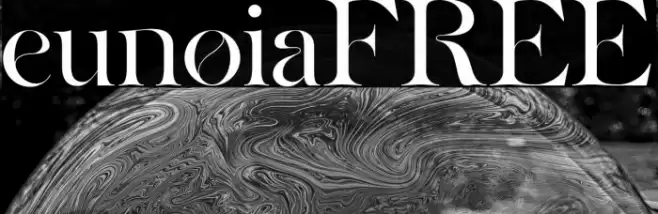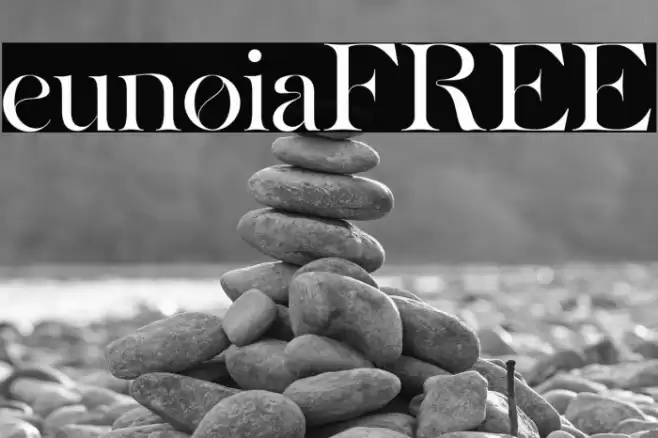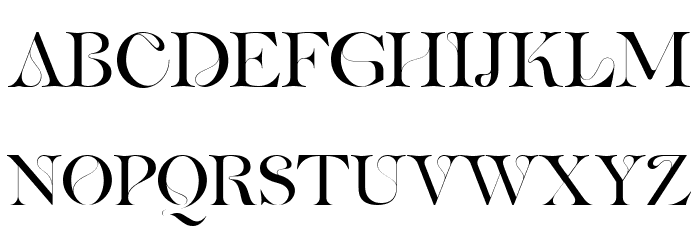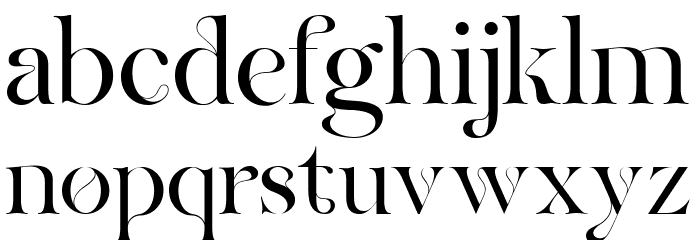
eunoiaFREE Font
eunoiaFREE Description
This font features a unique blend of modern and classic elements, characterized by its elegant and sophisticated design. The uppercase letters exhibit a high contrast between thick and thin strokes, creating a dramatic and eye-catching appearance. The lowercase letters maintain a consistent style, with graceful curves and a refined aesthetic. The overall design is both artistic and functional, making it suitable for a variety of design projects. The font's distinct style is further enhanced by its decorative elements, which add a touch of flair and personality.
A modern and elegant font with high contrast and decorative elements from Regular fonts.
- Proposed Projects: Ideal for luxury branding, editorial design, wedding invitations, and high-end product packaging.